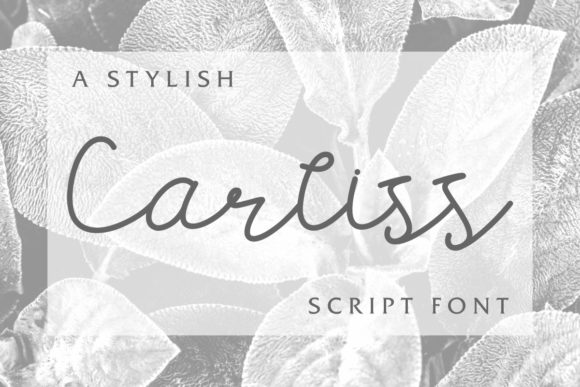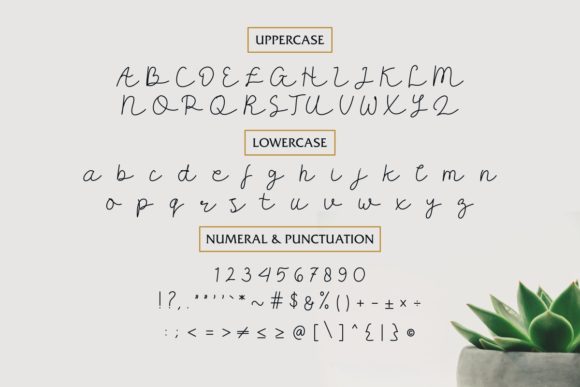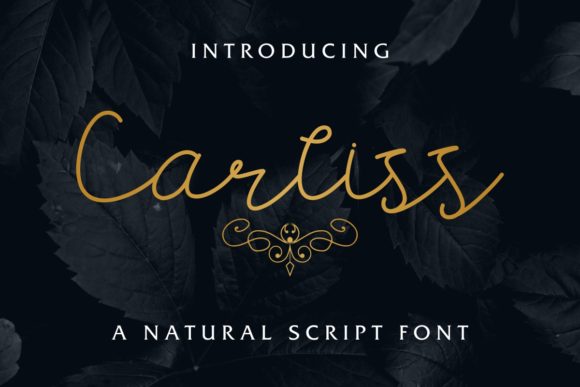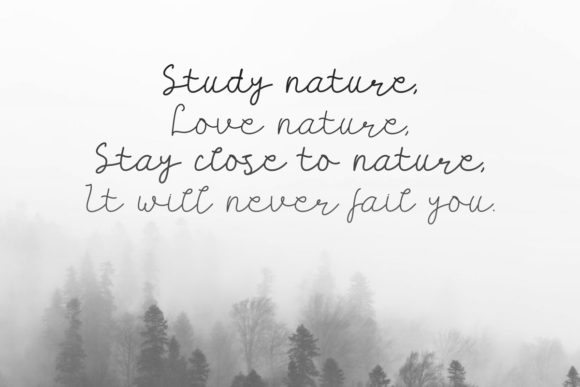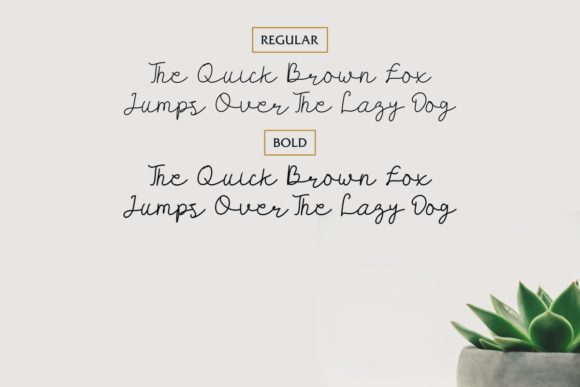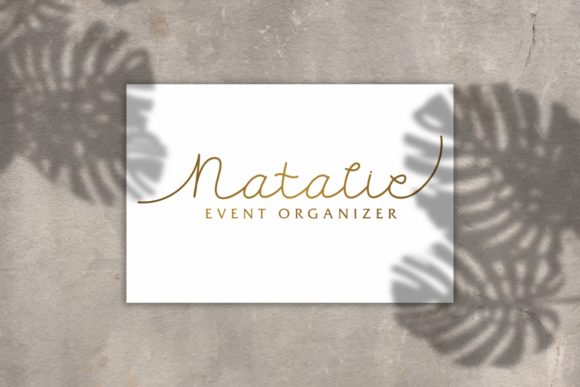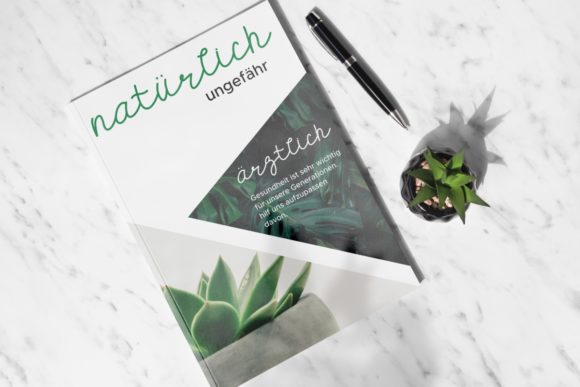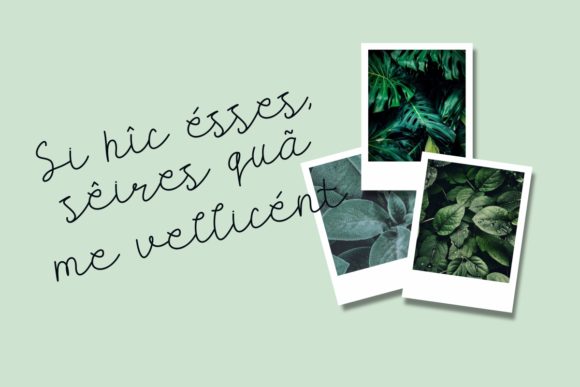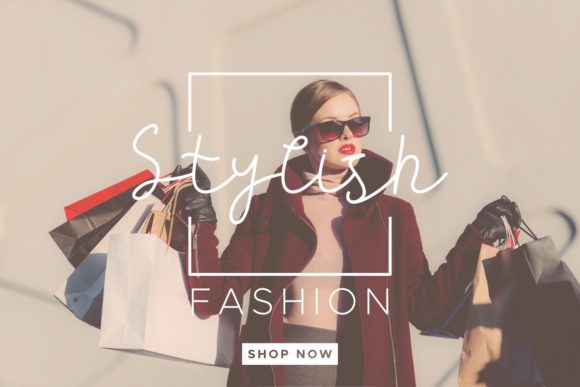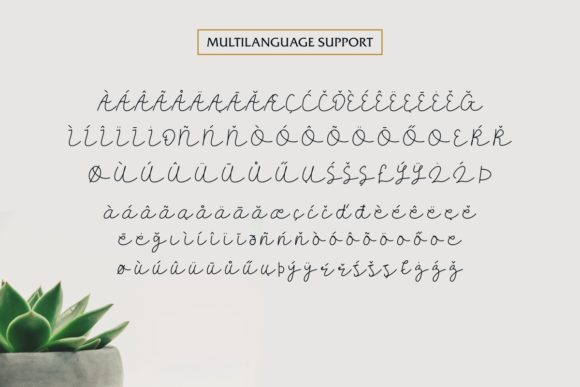
Carllis Font
About Carllis Font
Carliss is a new handwritten script style font, it’s laid-back yet stylish glyphs are sure to elevate any design.Use it to instantly add a chic, relaxed and authentic feel to any design